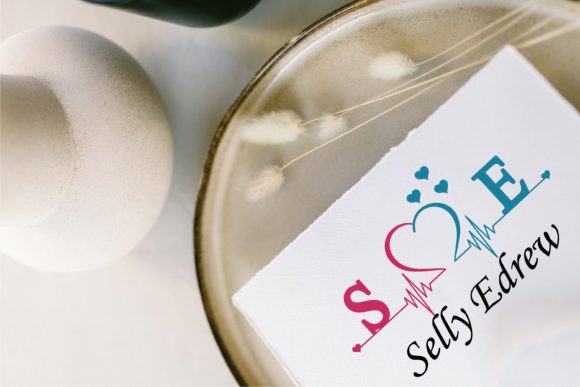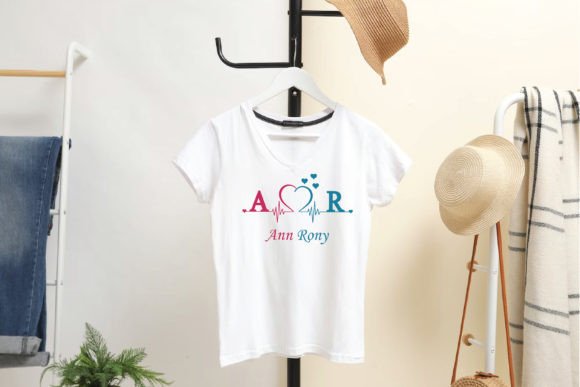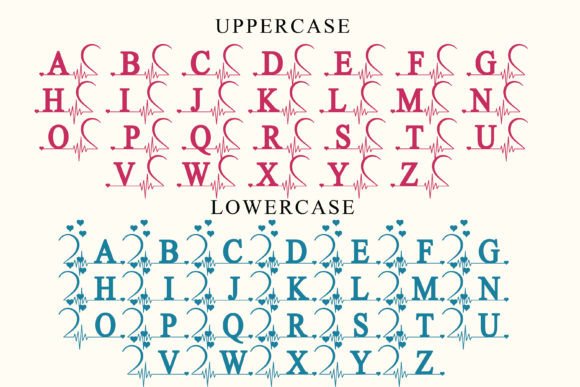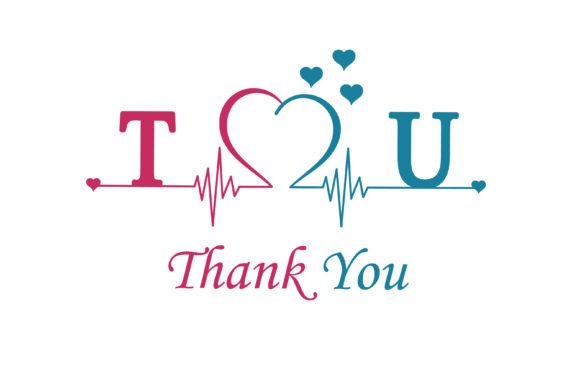
Introducing Heart Beat Love Font: The Perfect Addition to Your Valentine’s Day Projects
Are you looking for a unique and adorable font to make your Valentine’s Day projects stand out? Look no further than Heart Beat Love Font! This decorative font is specifically designed to add a touch of love and romance to your couple’s Valentine’s Cards, t-shirts, invitations, book covers, posters, and more.
What Makes Heart Beat Love Font Special?
Heart Beat Love Font is a one-of-a-kind typeface that combines elegance and playfulness, making it perfect for designers and crafters who want to create something truly special for their loved ones. The font’s design is inspired by the rhythm of the heart, with each letter and symbol carefully crafted to resemble a heartbeat. This unique design element adds a touch of whimsy and romance to any project.
Perfect for Valentine’s Day Projects
Valentine’s Day is just around the corner, and Heart Beat Love Font is the perfect addition to your holiday projects. Whether you’re designing a custom Valentine’s Card, creating a t-shirt for your loved one, or crafting a poster for your business, this font is sure to make your project stand out. The font’s romantic and playful design makes it perfect for a variety of projects, including:
- Valentine’s Cards: Create custom cards for your loved ones with a personal touch.
- T-shirts: Design unique and adorable tees for couples and love birds.
- Invitations: Set the tone for a romantic evening with custom invitations.
- Book Covers: Add a touch of romance to your book cover designs.
- Posters: Create eye-catching posters for your business or personal projects.
Why Designers and Crafters Love Heart Beat Love Font
Designers and crafters love Heart Beat Love Font for its unique and versatile design. Here are just a few reasons why:
- Unique Design: The font’s design is unlike anything you’ve seen before, making it perfect for designers and crafters who want to stand out from the crowd.
- High-Quality: The font is high-quality and scalable, ensuring that it looks great on any device or medium.
Tips for Using Heart Beat Love Font
Here are a few tips for using Heart Beat Love Font in your projects:
- Pair it with Other Fonts: Pair Heart Beat Love Font with other fonts to create a unique and interesting design.
- Experiment with Colors: Experiment with different colors to find the perfect combination for your project.
- Use it for Headlines: Use Heart Beat Love Font for headlines and titles to add a touch of romance and whimsy.
- Get Creative: Don’t be afraid to get creative and try new things with Heart Beat Love Font!
Heart Beat Love Font is a unique and adorable Valentine’s font that’s perfect for designers and crafters who want to add a touch of love and romance to their projects. With its elegant and playful design, this font is sure to make your Valentine’s Day projects stand out. Whether you’re designing a custom Valentine’s Card, creating a t-shirt for your loved one, or crafting a poster for your business, Heart Beat Love Font is the perfect addition to your project.